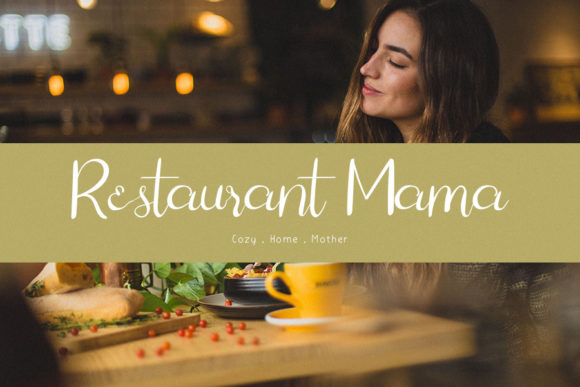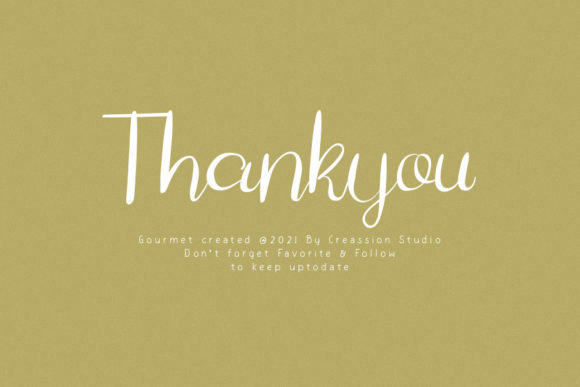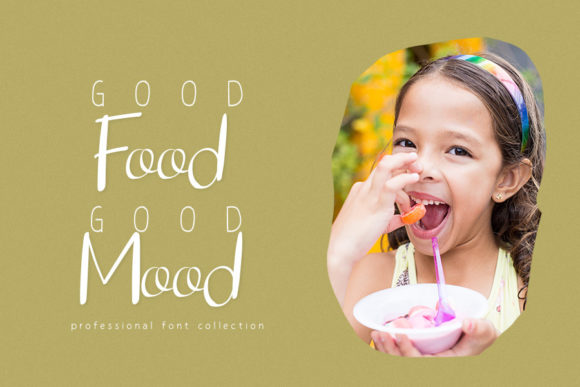
Gourmet Font
About Gourmet Font
Gourmet is a cheerful and intellectual handwritten font. With its flowing design, this font will ensure the most modern and natural
birthday cards, wedding invitations, restaurant branding, menus, and more!